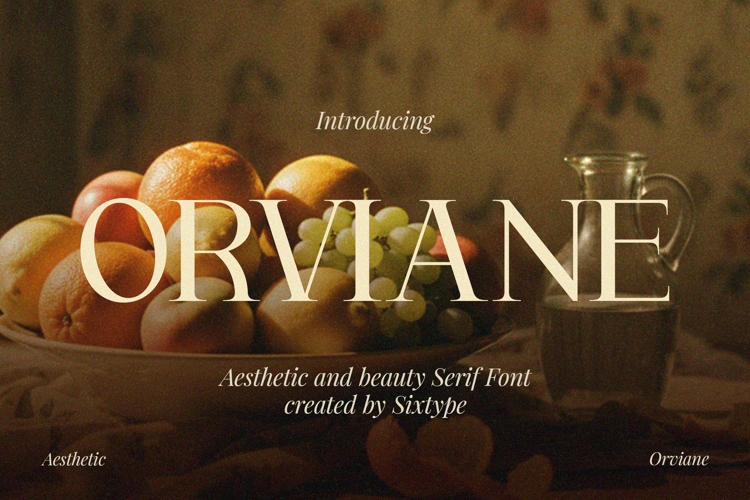
Orviane Font
Orviane is a graceful high-contrast serif typeface that embodies timeless beauty and refined sophistication. Drawing inspiration from classic editorial typography, it showcases delicate hairlines, elegant proportions, and distinctive artistic details that infuse individuality into every letterform. Subtle flourishes and expressive curves enhance its visual allure, making it an excellent choice for luxury branding, beauty products, fashion editorials, and premium packaging. With its harmonious blend of classic and contemporary elements, Orviane offers a poetic and atmospheric tone, perfect for designs that aspire to convey elegance, warmth, and compelling visual storytelling.